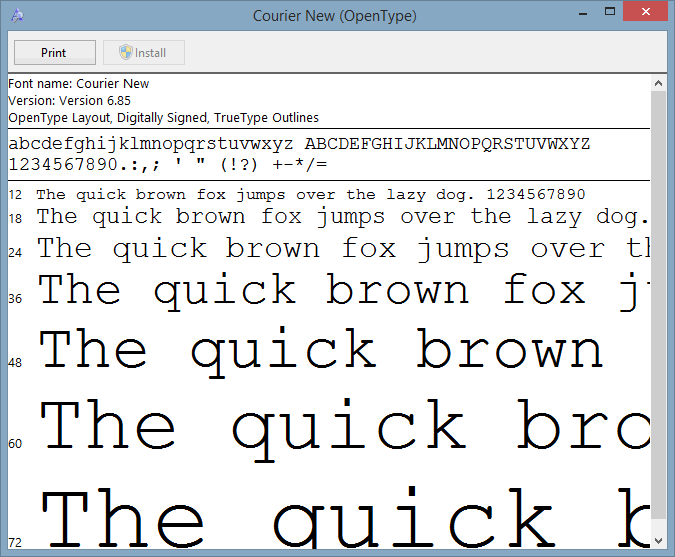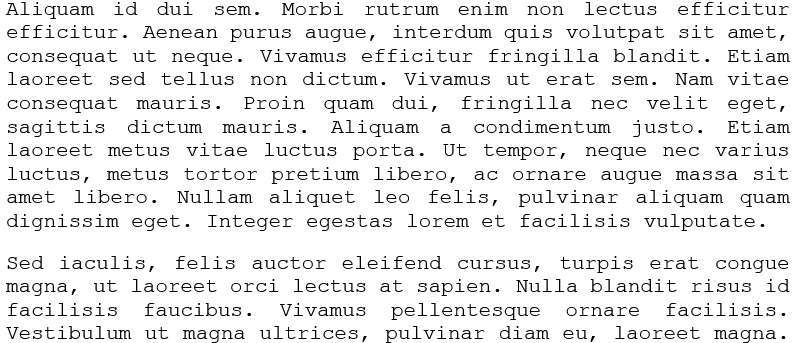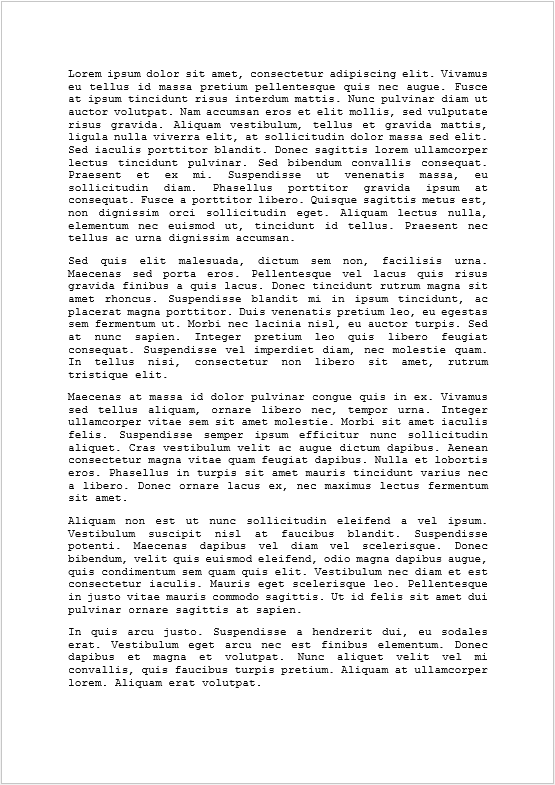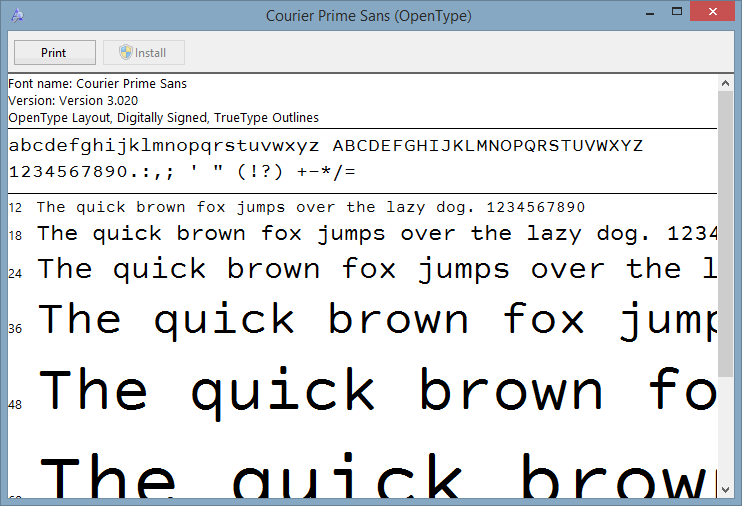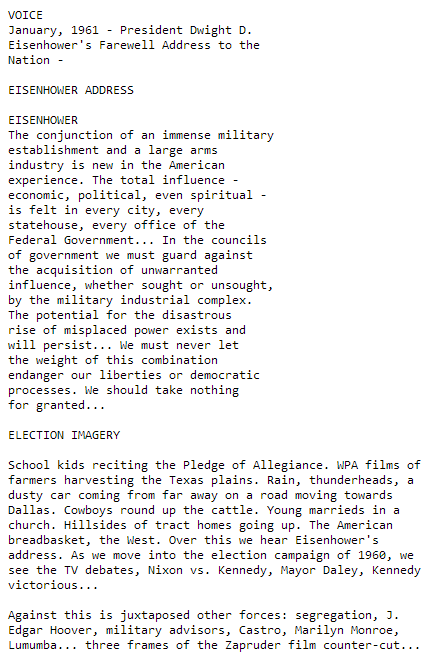
MTE Explains: What is a Monospace Font?
Uniformity is essential for some purposes. Universities have formatting requirements right down to line spacing and font choice. The stereotypical image of military documents features a very specific look, all with the end goal of maintaining a degree of consistency.
It should come as no surprise that fonts play a major role in giving this sense of uniformity. In general, fonts can be grouped into two different types of characters: fixed width (or monospace), and variable width.
What is a monospace font?
At the most basic level a monospace font is one where all characters are the same width and height. This relates to the ‘mono’ part of the name and is primarily responsible for their highly consistent appearance.
Consider the above snapshot of the word “Hello” in Courier New. Notice how the letters are spaced next to each other, their shape and their size.
Compare the word ‘Hello’ when displayed in Courier New with Calibri at the same point size. The picture is the same size as it was when Courier New was used, but there’s more room towards the right of the screen.
In Calibri, the lower-case “L” is smaller than the lower-case “E.” In Courier, both are the same size, with the ‘L’ having a very distinct shape to maintain a consistent size. This is, in a nutshell, how monospace fonts differ from those with variable widths.
Why are they used?
Certain fonts have a monopoly on certain purposes. We’ve already drawn attention to the importance of font choice in academia, where Times New Roman rules the roost. The typical image of a film or television script bears similarities with that of military documents, and in both cases, the Courier fonts are critical.
Tradition is as much a part of the reasoning as utility. Fonts like Courier, for example, are the de facto choice for screenwriters. While it may be a holdover from the era of typewritten scripts, Courier also has a neat trick up its sleeve: formatted correctly, an A4 page roughly equals a minute of on-screen time.
While it’s never going to be a perfect 1:1 ratio (description may take up lines while it could take a second or two of screen time, as seen in this extract from Oliver Stone’s “JFK” script), it is a notable bonus that could potentially be applied to other monospace fonts as well.
Examples
There are numerous monospace fonts included as standard on computers, and the Courier family is probably the most famous, appearing in both Windows and Mac OS X systems. We previously shared a few fonts that deviate from the standard Courier appearance, but there are many, many more, including a ‘sans’ variant of Courier Prime that remains monospaced. One particularly interesting take on monospace fonts is Lekton, a font designed in just eight hours that mimics the typeface found on old Olivetti typewriters.
While typewriter-esque fonts are a prominent part of the monospace landscape, there are others as well, including fonts designed for niches. Inconsolata is freely distributed and is considered a pleasant variation to Microsoft’s Consolas, while those of you who used Android prior to 4.0 will likely recognise Droid Sans and its monospaced derivative, Droid Sans Mono. The Proggy family of fonts, meanwhile, is intended for programmers and coders who wish to use small font sizes while maintaining legibility.